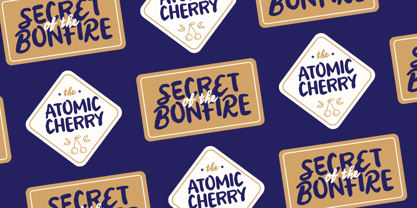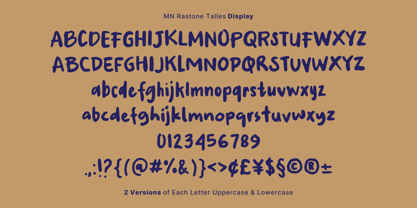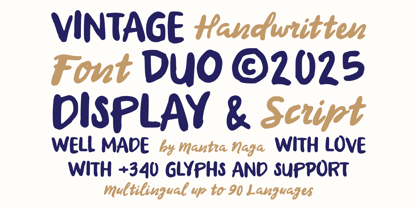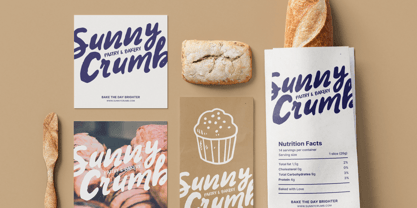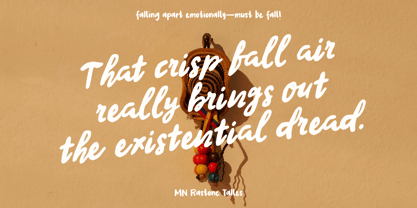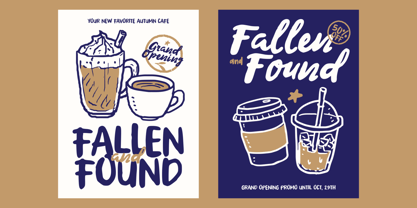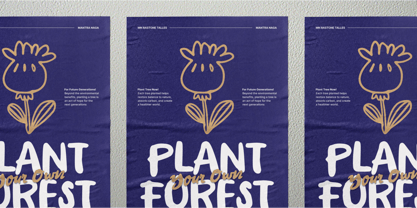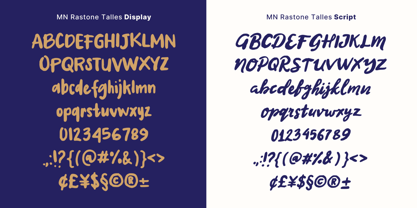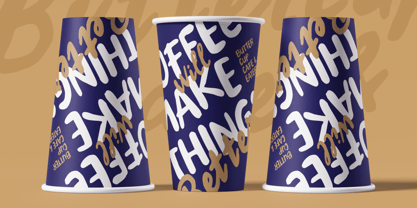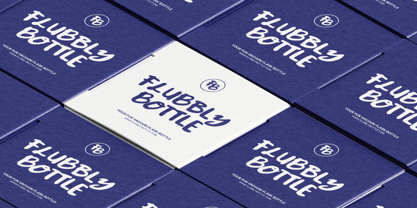
MN Rastone Talles
by Mantra Naga Studio
The MN Rastone Talles Font Family was designed by Fredo Eka Pratama and published by Mantra Naga Studio. MN Rastone Talles contains 2 styles and family package options. More about this family
Meet MN Rastone Talles, a vintage handwritten font duo with a bold, masculine soul. It comes in two styles — Display and Script — designed to work perfectly together. No more guessing or struggling to find the right font pairing; this duo is made to make your life easier. It’s crafted for display use, headlines, logotypes, branding, packaging, posters, and anything that needs that handcrafted vintage touch. The Display style features Contextual Alternates, which means when you type the same letter twice (uppercase or lowercase), one of them automatically switches to a different form. The result? A more natural, authentic handwritten feel — no two strokes look the same. Rastone Talles is more than just a font; it’s a pair made for creators who want to stand out with something rugged, timeless, and full of character.
Designers: Fredo Eka Pratama
Foundry: Mantra Naga Studio
MN Rastone Talles